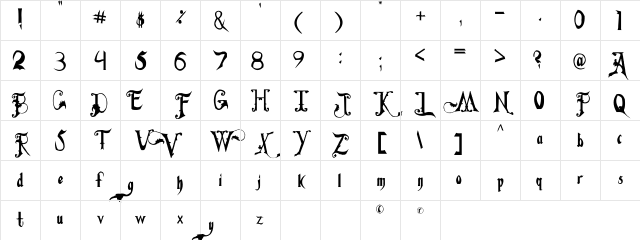
Fiddums Family Regular
Foundry: High-Logic
Designer: High-Logic - Erwin Denissen 1999
Design Context for Fiddums Family
Fiddums Family is a composed and adaptable typeface that performs quietly and consistently across a wide range of design contexts.